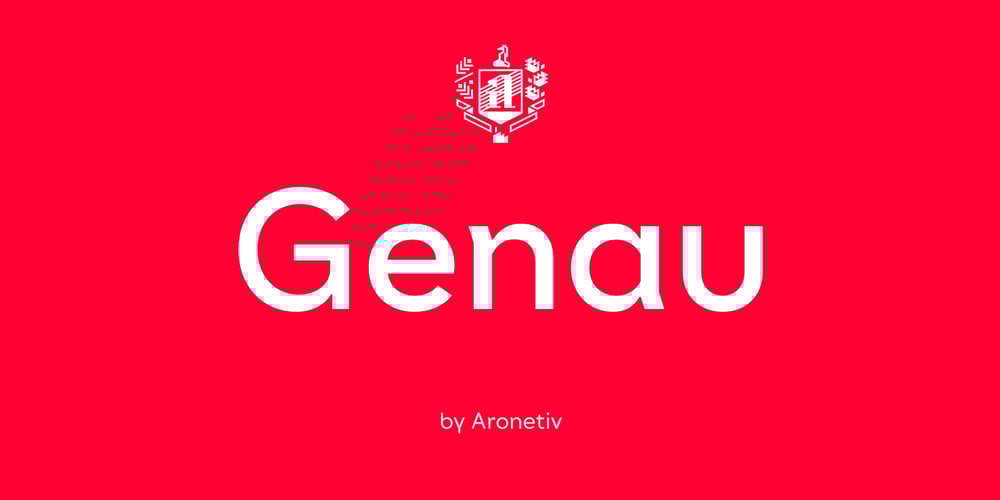
Genau Font Family was designed by Aleksey Popovtsev and published by Aronetiv. Genau contains 9 styles and family package options. The Genau family is a geometric sans serif designed under the influence of the constructivist schools of Vkhutemas and Bauhaus. Despite the traditional shapes, the family has characteristic features in the modern outline. The sharp junction of round and straight strokes repeats the sharp tails in “a” “d” “n” “u” and other. The family has an even, smooth texture. The family has been developed to advert materials for architecture, design, education, modern art. The family has high readability in a small size, and doesn’t lose aesthetic qualities when enlarged.The font family contains 8 stylesThe font is equipped with a Variable file with two axes (weight and slope)Supports languages of central Europe and some languages of eastern EuropeContains small uppercase lettersContains tabular figuresThere are several alternates in the fontThe font has more than 1700 kerning pairs